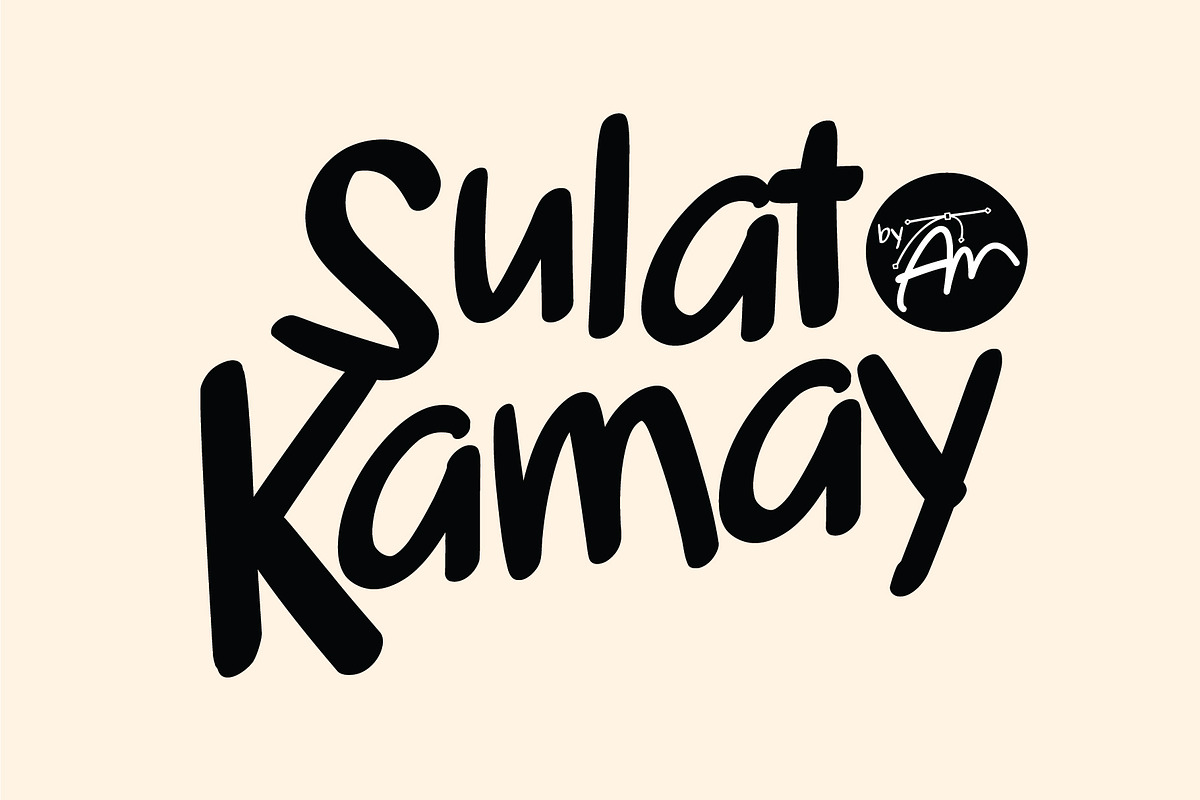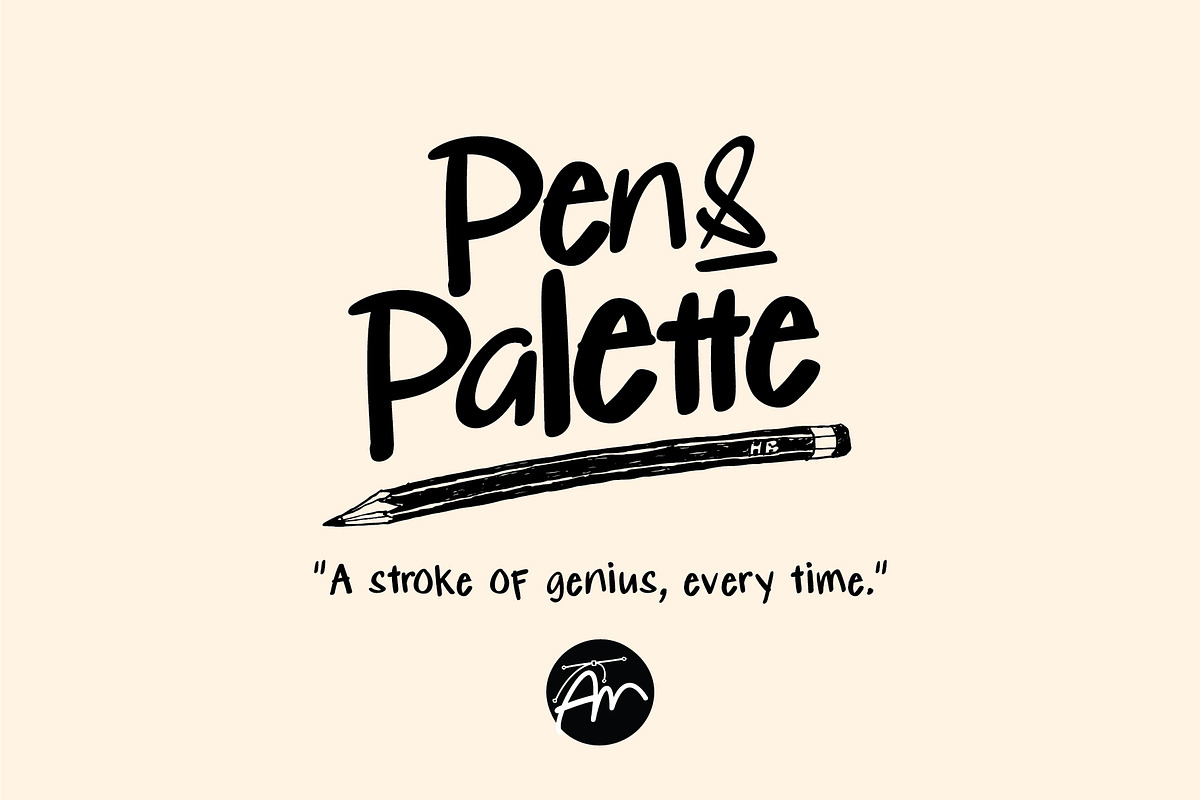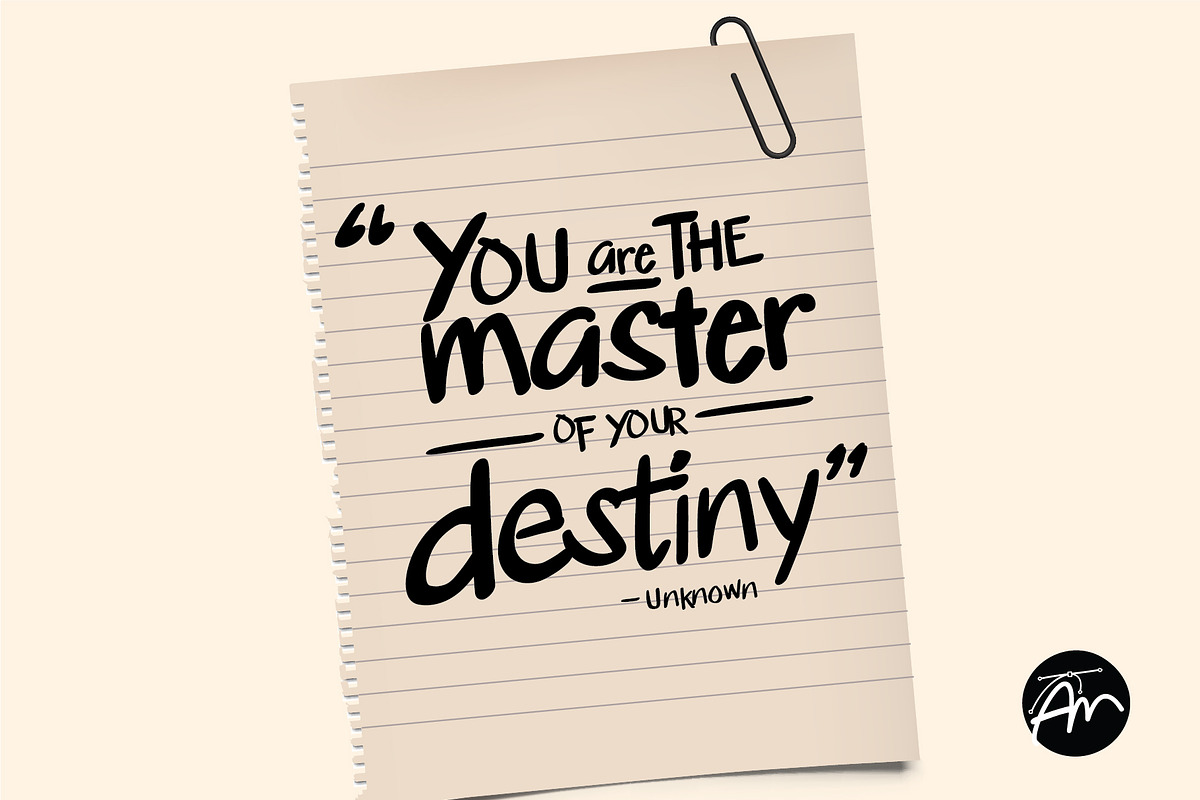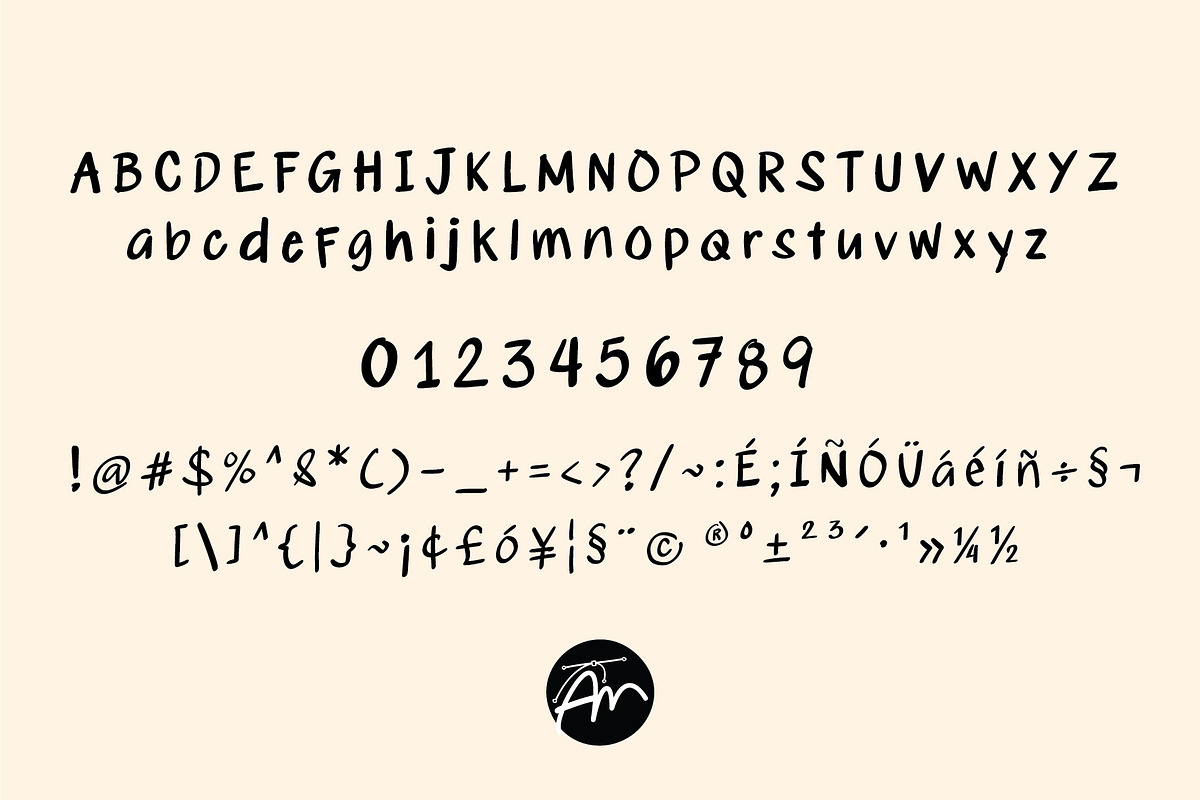
Sulat-Kamay 00 by AM
Introducing Sulat-Kamay, a unique handwritten font created from my personal penmanship - the same penmanship I used to take notes in my college notebooks, now available in digital form to add a personal touch to your projects.